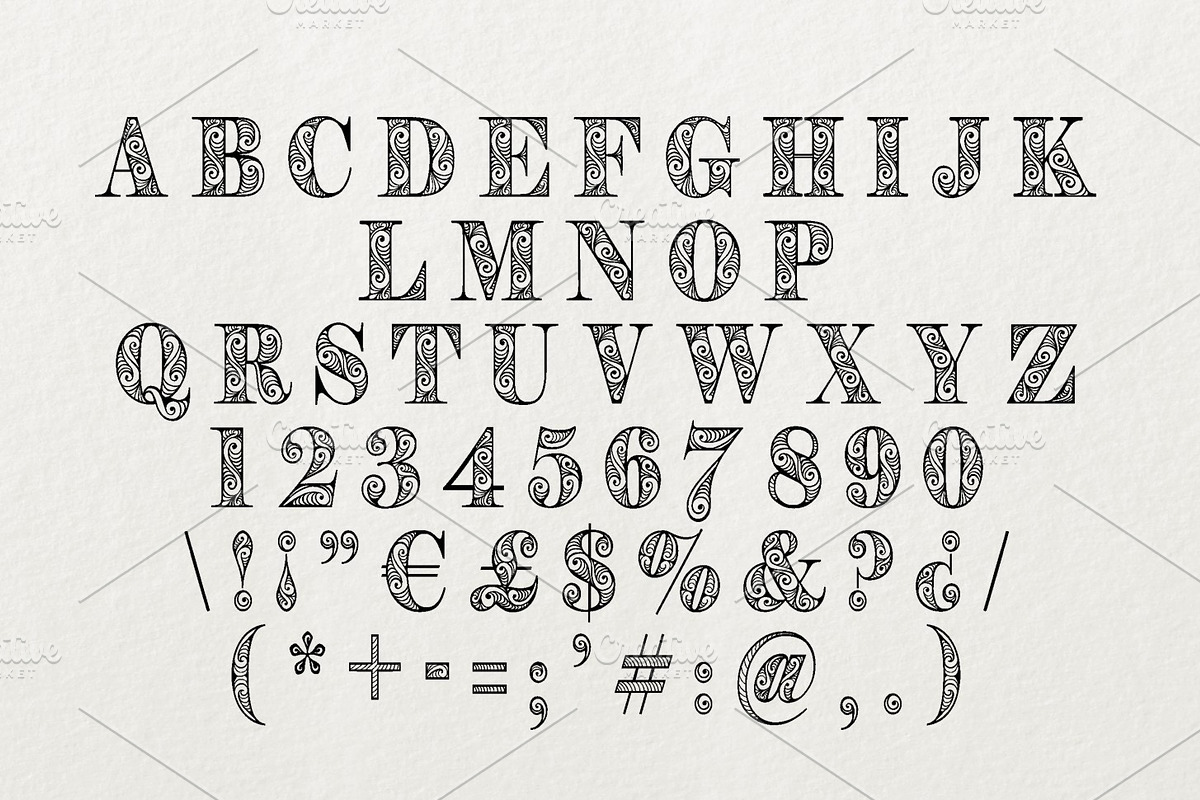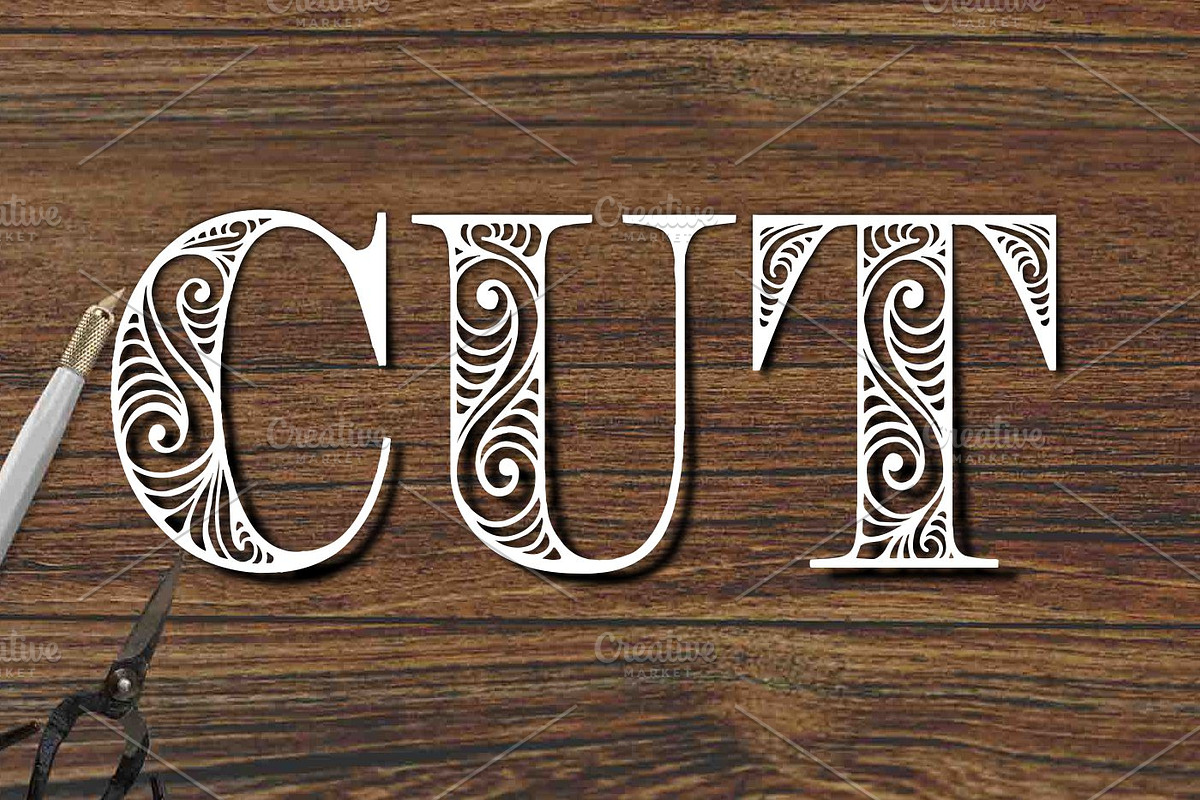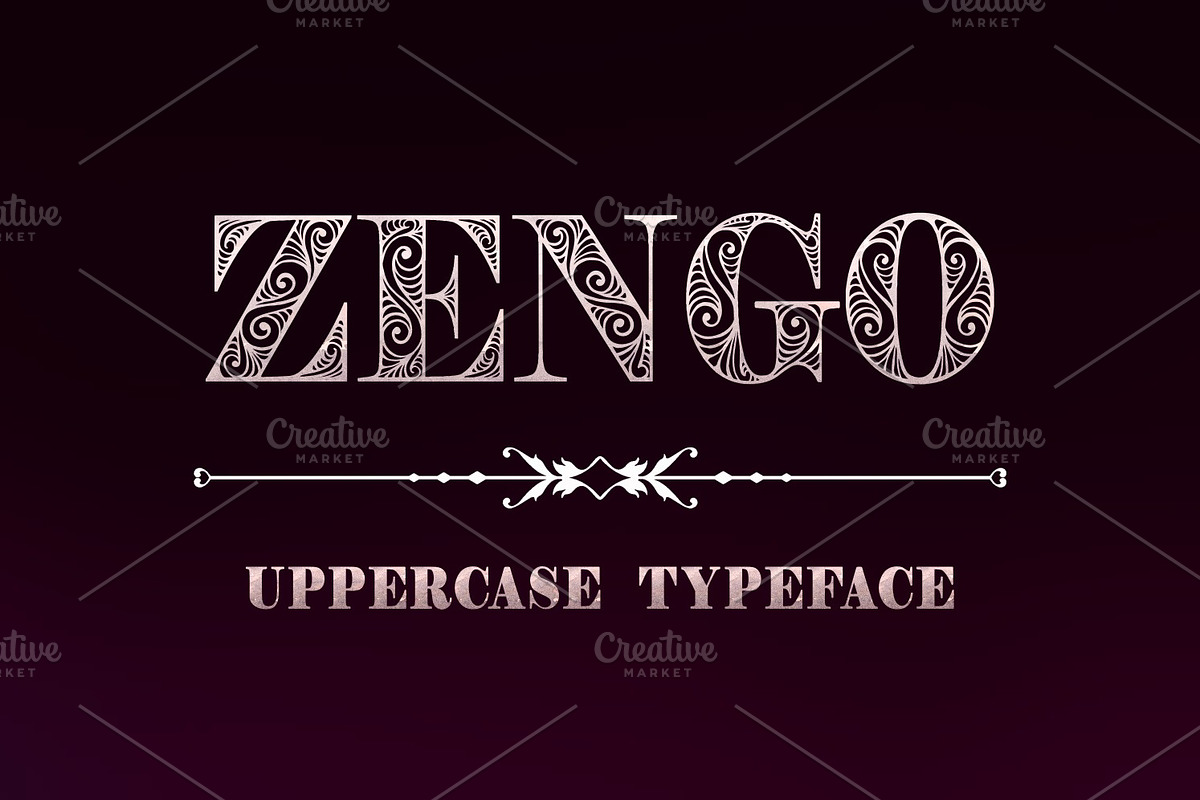
Zengo
Zengo is a hand drawn uppercase typeface, great font for many craft projects.
Why Zengo is worth a look
Zengo by Digital Typeface Studio fits naturally into Branding, posters, packaging, typography.